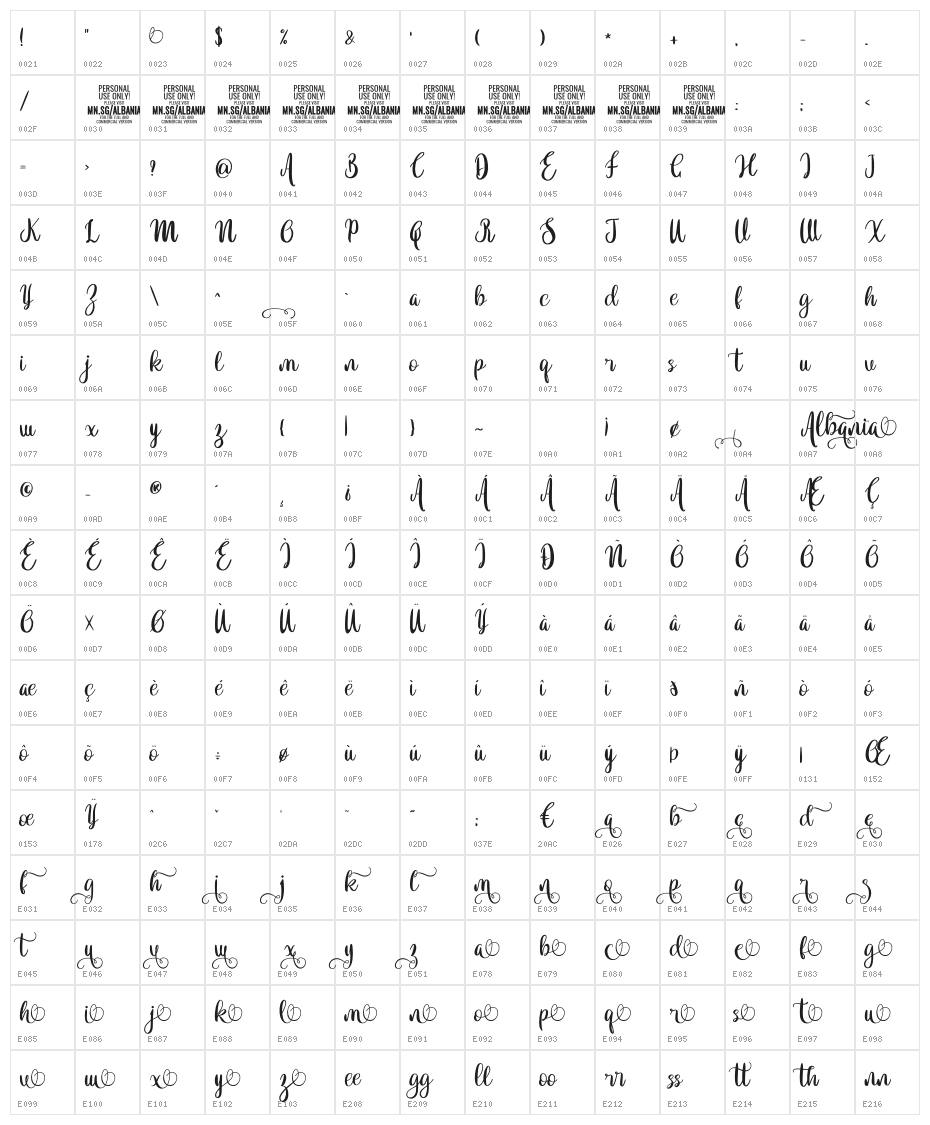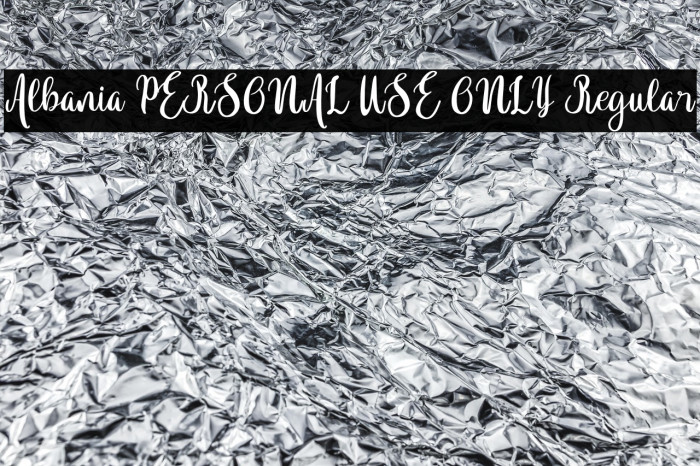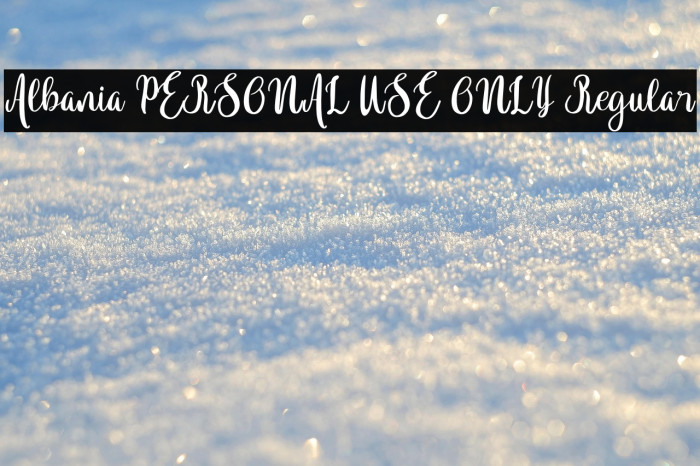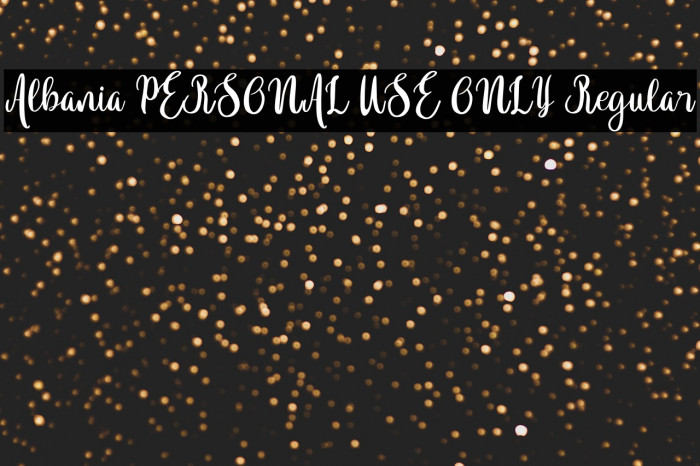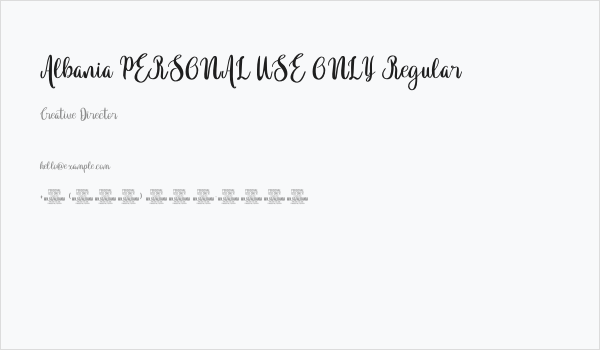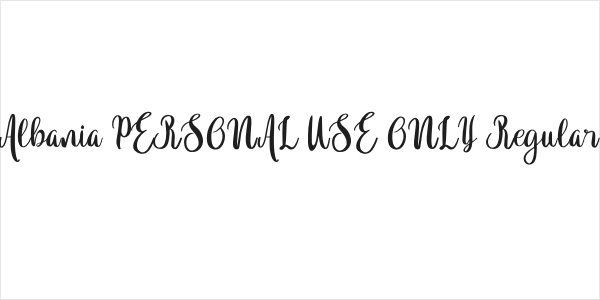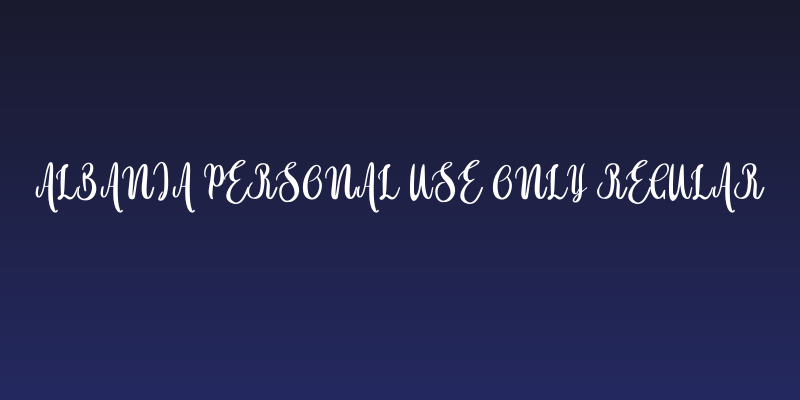
Albania PERSONAL USE ONLY Regular Font
Albania PERSONAL USE ONLY Regular Description
This font features a playful and elegant script style, characterized by its flowing, cursive letters that convey a sense of movement and grace. The uppercase letters are bold and dynamic, with sweeping curves and loops that add a decorative flair. The lowercase letters maintain a consistent style, with a slightly more subdued appearance, yet still retaining the overall fluidity. The numerals and special characters complement the alphabet with similar stylistic elements, ensuring a cohesive look across all text. This font is ideal for projects that require a personal touch, such as invitations, greeting cards, or branding materials that aim to convey warmth and creativity.